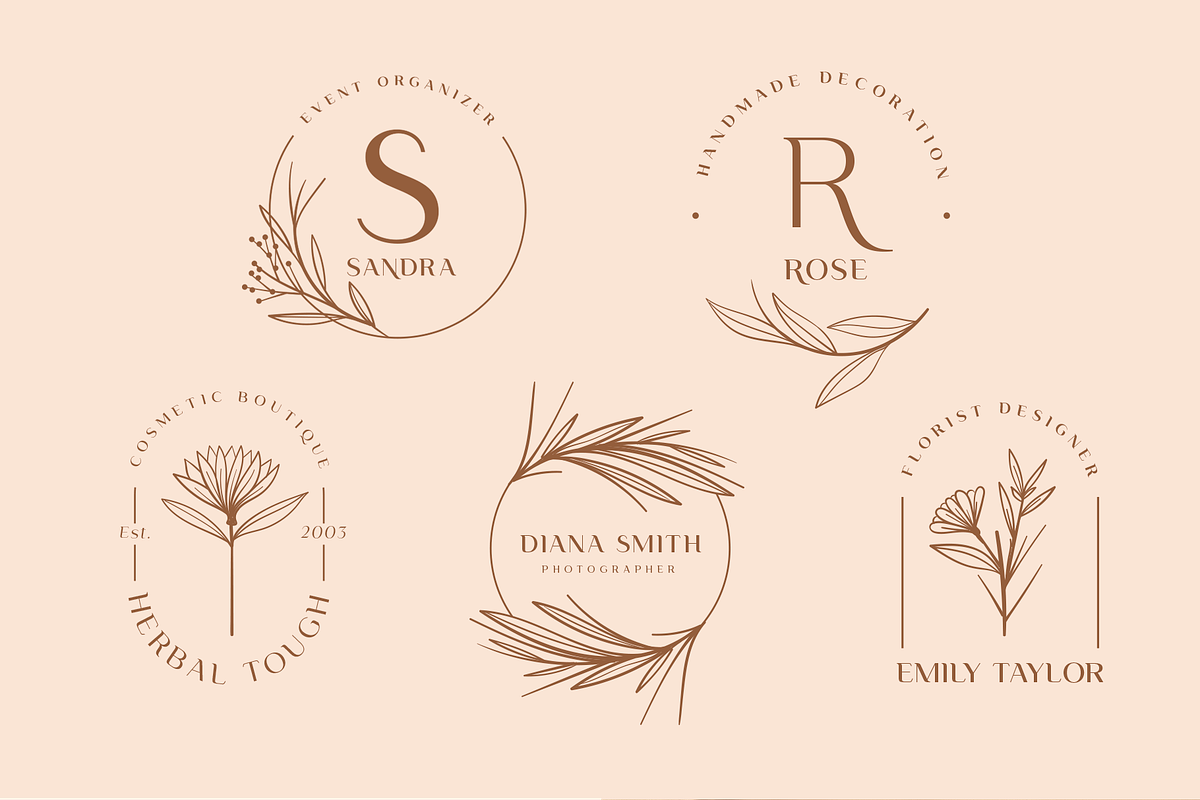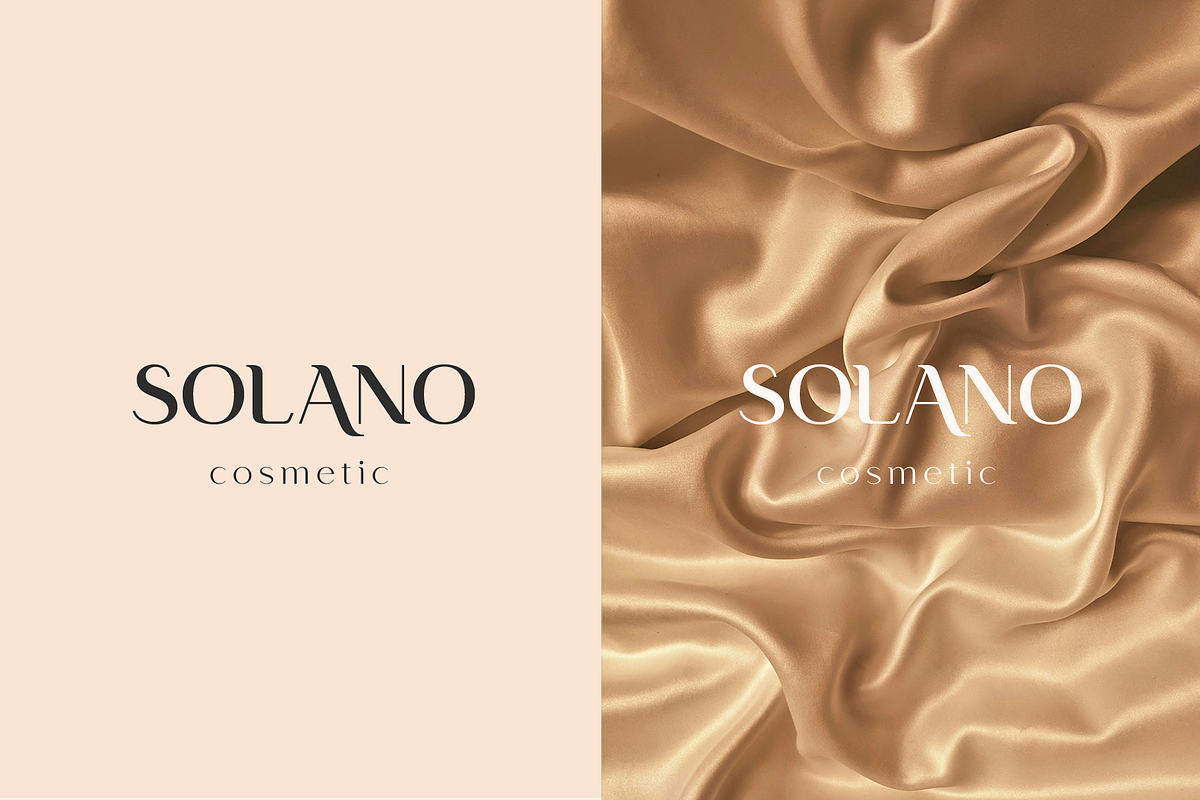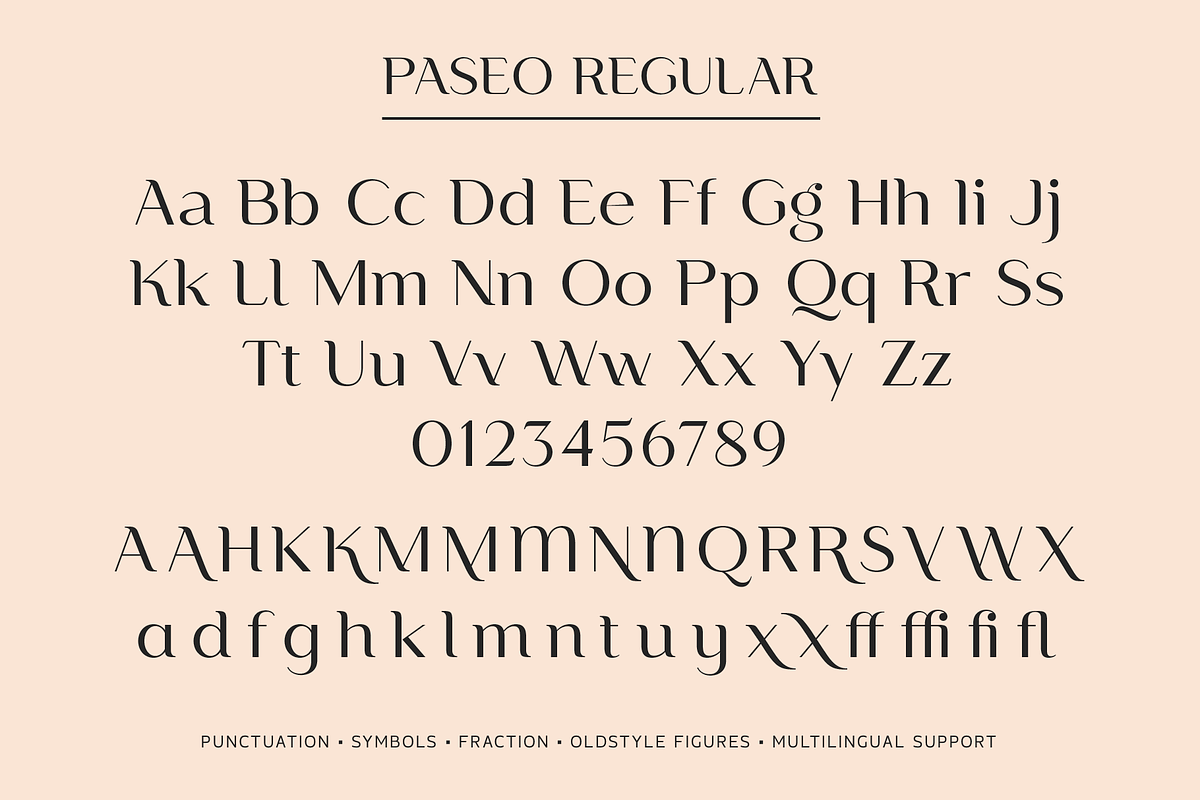
Paseo is an elegant, modern and contrast sans-serif font family, and a great fashionable solution for your project. It includes upright and Italic style, each of them has eight weights from thin to extabold.
This is a multi-purpose font that is perfect for fashion project, it is contrasted, modern and easy to read. With it, you can create logos, banners, use in advertising, packaging, book covers and magazines, headings, descriptions and much more.
- Full alphabet with Uppercase and Lowercase A-z
- Alternates for uppercase “A,H,K,M,N,Q,R,S,V,W,X”
- Alternates for lowercase “a,d,f,g,h,k,l,m,n,t,u,y,x”
- Standart Ligatures “ff, fi, ffi, fl”
- Numbers, fractions, old style figures
- Punctuation and symbols
- Multilingual support